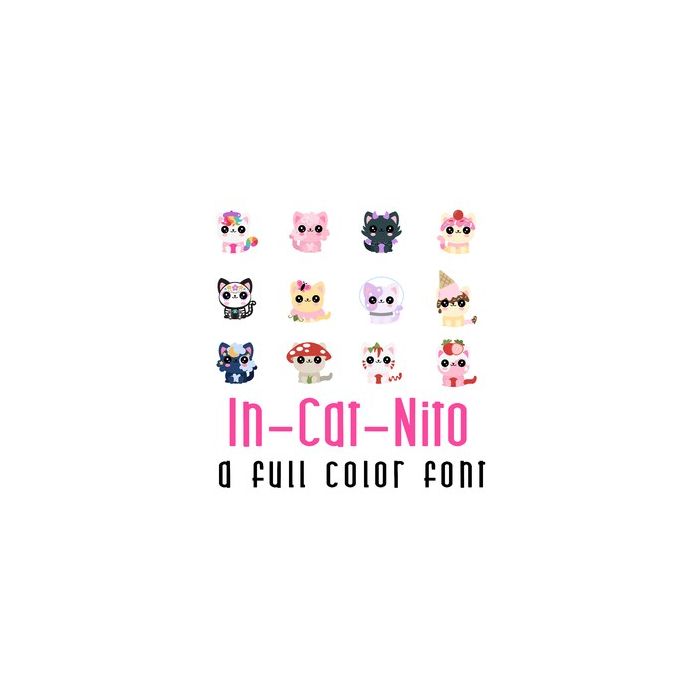
This adorable full-color doodlebat font features 26 kawaii style cat's in cute disguise. Perfect for cards, crafts, gifts, decor, scrapbook pages, planner stickers, and more!